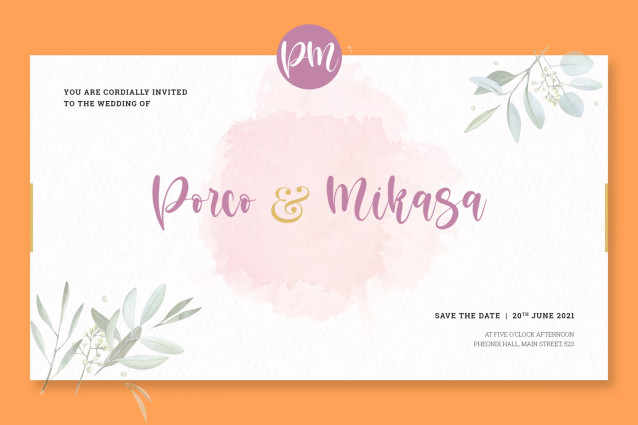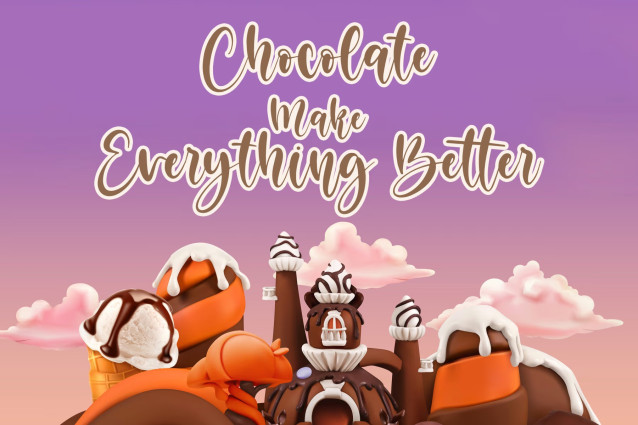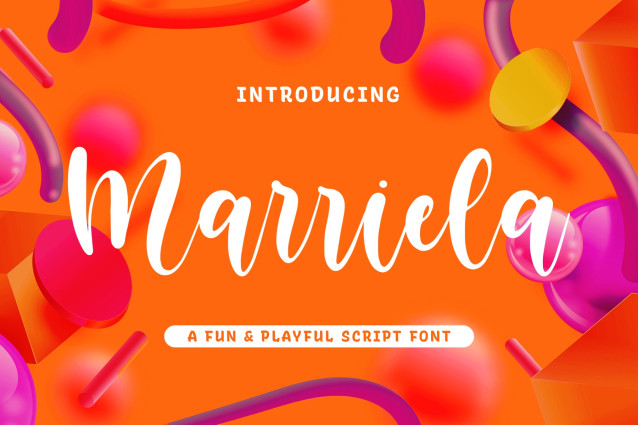
Marriela – Fun Script Font with a natural handwritten feel. This handmade font will make your design has a beautiful natural touch for each details. It is perfect for any design project as Invitation,logo, book cover, craft or any design purposes. This font is PUA encoded which means you can access all of alternate glyphs and ligatures.
- Standard glyphs
- Multilingual
- Ligatures